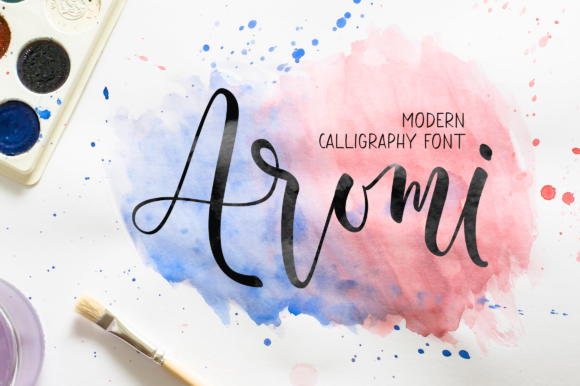
I still remember the frustration of working on a project, hours pouring into every detail, and then getting stuck on one thing: the font. It was for a client’s boutique branding, and I needed something that screamed elegance and sophistication. I scrolled through font after font, but nothing seemed quite right. That was until I stumbled upon Aromi.
Aromi Font: The Game-Changer – Aromi is a modern and cool script font with amazing swashes. Use it to turn any design project into a standout! In this article, I’ll dive into what makes Aromi special, its quirks, how to use it on different platforms, and some alternatives you might love.
An Honest Review of Aromi Font
What I Love About Aromi ✨
- 💫 Elegant swashes that add a touch of sophistication to any design
- ✅ Highly versatile, perfect for branding, packaging, and advertising
- 🎨 Beautifully crafted to make your designs pop
- 👍 Easy to read, even in smaller sizes
- ⚠️ Some swashes might not work well in very small sizes or when used excessively
- ⚠️ Limited use in very formal or traditional designs, as it’s quite modern
The Story Behind Aromi
Aromi was crafted with the modern designer in mind. Its creator aimed to produce a font that was not only stunning but also versatile. Inspired by the world’s beauty and the elegance of handwritten scripts, Aromi brings a touch of class to any project.
Q: Is Aromi suitable for body text?
A: While Aromi is beautiful, it’s primarily designed for headlines and short text passages. For body text, consider a more straightforward font for readability.